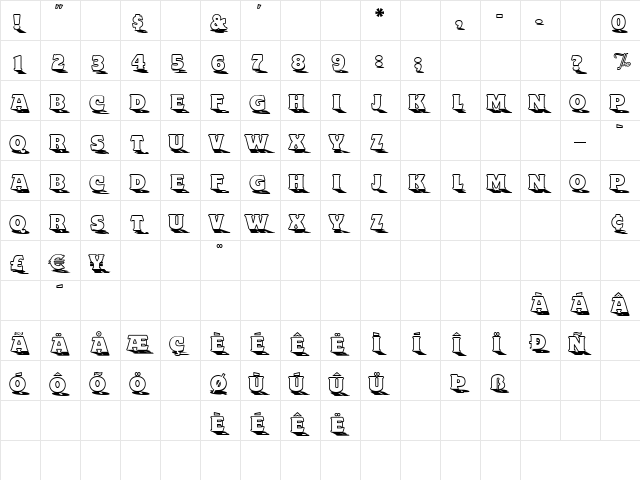
Toyland Outline Capital Regular
Design Context for Toyland Outline Capital Typeface
Toyland Outline Capital brings ornamental detail and strong personality to headlines and identities, where visual impact matters more than quiet functionality.
Font Pairing: Pair with a clean neutral sans-serif for body copy to let Toyland Outline Capital's character lead without overwhelming the composition.
Pro Tip: Use Toyland Outline Capital exclusively at display sizes — it was designed to be seen, not read at length. Let a neutral companion handle body copy.